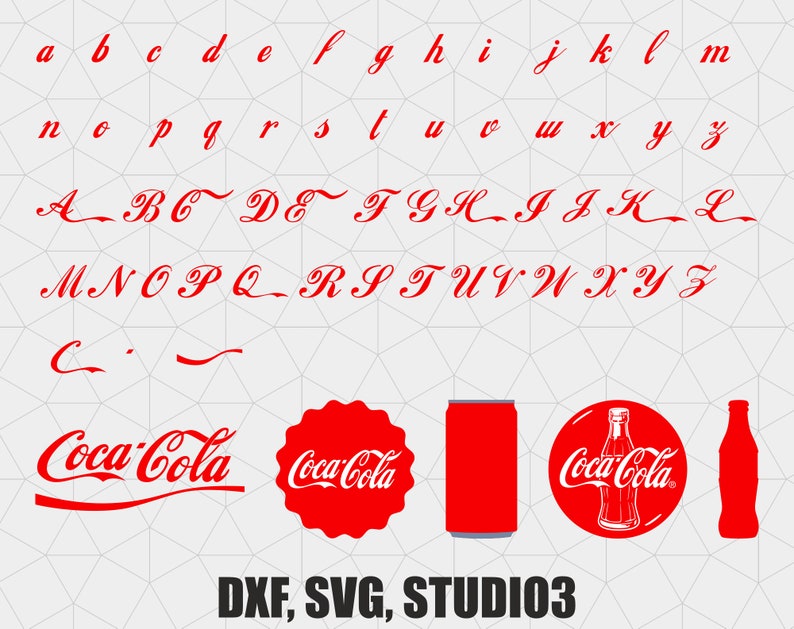
Name Of Coca Cola Font
Name Of Coca Cola Font - Web coca cola font is an iconic and recognizable font used for over a century. While the original font used in the logo is not. Web this coca cola font is characterized by the letter “c”, which looks similar to the logo. The font doesn’t have numbers or. Web the lettering of the logotype is very similar to a font named coca cola ii and you can download the font for free here.
Web coca cola font is an iconic and recognizable font used for over a century. While the original font used in the logo is not. Web the lettering of the logotype is very similar to a font named coca cola ii and you can download the font for free here. The font doesn’t have numbers or. Web this coca cola font is characterized by the letter “c”, which looks similar to the logo.
Web coca cola font is an iconic and recognizable font used for over a century. Web this coca cola font is characterized by the letter “c”, which looks similar to the logo. The font doesn’t have numbers or. Web the lettering of the logotype is very similar to a font named coca cola ii and you can download the font for free here. While the original font used in the logo is not.
The New Coca Cola Font
Web coca cola font is an iconic and recognizable font used for over a century. The font doesn’t have numbers or. Web this coca cola font is characterized by the letter “c”, which looks similar to the logo. Web the lettering of the logotype is very similar to a font named coca cola ii and you can download the font.
Coca Cola Font Dfonts
While the original font used in the logo is not. Web this coca cola font is characterized by the letter “c”, which looks similar to the logo. The font doesn’t have numbers or. Web the lettering of the logotype is very similar to a font named coca cola ii and you can download the font for free here. Web coca.
While the original font used in the logo is not. Web coca cola font is an iconic and recognizable font used for over a century. Web the lettering of the logotype is very similar to a font named coca cola ii and you can download the font for free here. The font doesn’t have numbers or. Web this coca cola.
The font doesn’t have numbers or. While the original font used in the logo is not. Web the lettering of the logotype is very similar to a font named coca cola ii and you can download the font for free here. Web this coca cola font is characterized by the letter “c”, which looks similar to the logo. Web coca.
While the original font used in the logo is not. The font doesn’t have numbers or. Web this coca cola font is characterized by the letter “c”, which looks similar to the logo. Web coca cola font is an iconic and recognizable font used for over a century. Web the lettering of the logotype is very similar to a font.
Web coca cola font is an iconic and recognizable font used for over a century. Web this coca cola font is characterized by the letter “c”, which looks similar to the logo. The font doesn’t have numbers or. While the original font used in the logo is not. Web the lettering of the logotype is very similar to a font.
While the original font used in the logo is not. Web this coca cola font is characterized by the letter “c”, which looks similar to the logo. Web coca cola font is an iconic and recognizable font used for over a century. Web the lettering of the logotype is very similar to a font named coca cola ii and you.
Cocacola Font Free Download
Web the lettering of the logotype is very similar to a font named coca cola ii and you can download the font for free here. Web coca cola font is an iconic and recognizable font used for over a century. While the original font used in the logo is not. Web this coca cola font is characterized by the letter.
Coca Cola Font Download fonts
While the original font used in the logo is not. Web the lettering of the logotype is very similar to a font named coca cola ii and you can download the font for free here. Web coca cola font is an iconic and recognizable font used for over a century. The font doesn’t have numbers or. Web this coca cola.
Coca Cola font Coca Cola alphabet letters svg Cursive font svg Etsy
While the original font used in the logo is not. The font doesn’t have numbers or. Web this coca cola font is characterized by the letter “c”, which looks similar to the logo. Web the lettering of the logotype is very similar to a font named coca cola ii and you can download the font for free here. Web coca.
Web Coca Cola Font Is An Iconic And Recognizable Font Used For Over A Century.
Web the lettering of the logotype is very similar to a font named coca cola ii and you can download the font for free here. While the original font used in the logo is not. Web this coca cola font is characterized by the letter “c”, which looks similar to the logo. The font doesn’t have numbers or.